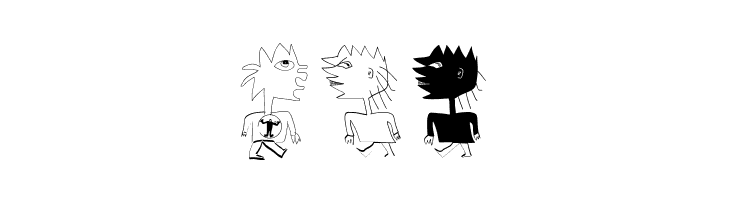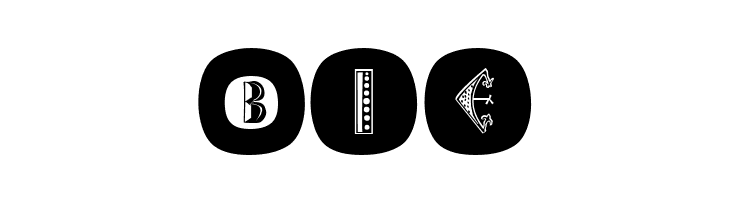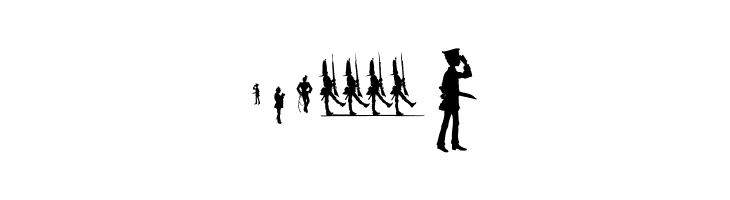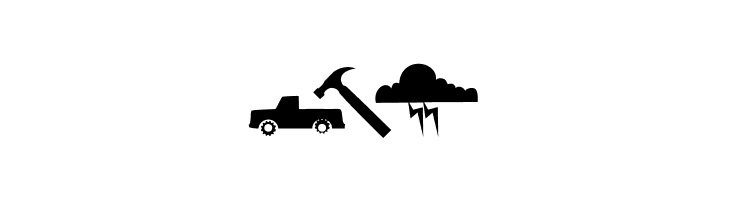
• Spontcomic
Cartoonish, hand-drawn font with energetic, comic character illustrations.
• BonSans
A bold, dynamic font with thick, rounded strokes and an artistic flair.
• DueMillePix
A pictogram font with tribal and whimsical illustrated glyphs.
• ReinersImOval
A decorative and playful font with characters enclosed in ovals, featuring artistic patterns.
• SteubenHelpsPresident
Silhouette-based font with historical figure illustrations forming each character.
• AnimalsOldfashion
Vintage animal illustration dingbat set.
• SomeSymbols
A playful pictogram dingbat set with various themed icons.
• SonnCar
A bold, geometric font with sharp angles and clean lines, ideal for modern designs.
• HollaMediaeval-Oblique
A classic oblique serif font with elegant slant and refined serifs.
• HollaMediaeval-Bold
A bold, classic serif font with a medieval touch.